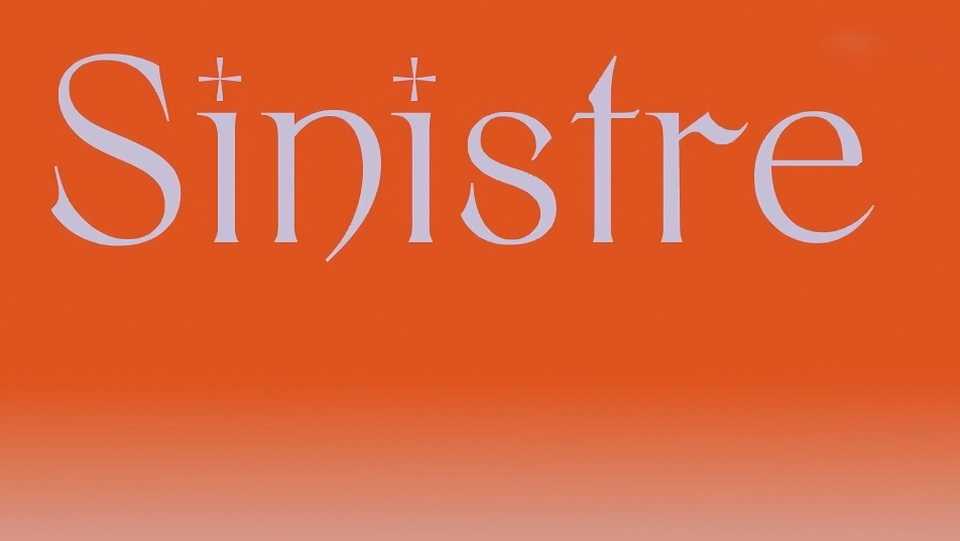
Download Sinistre font, a typeface inspired by the decorative medieval aesthetic. Sinistre is a free interpretation of old Celtic lettering that includes various letterforms from the past such as Uncial and Round Gothic.